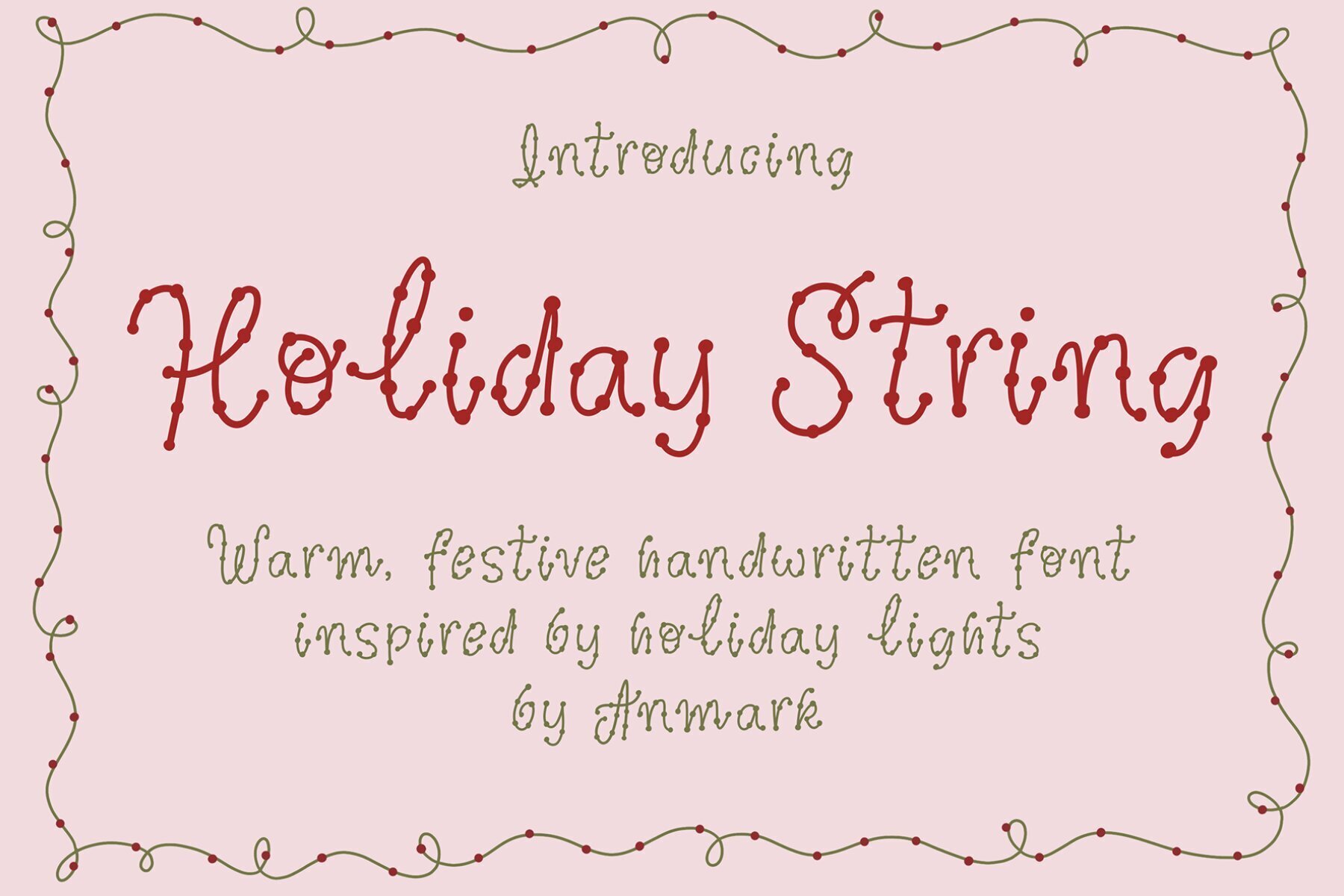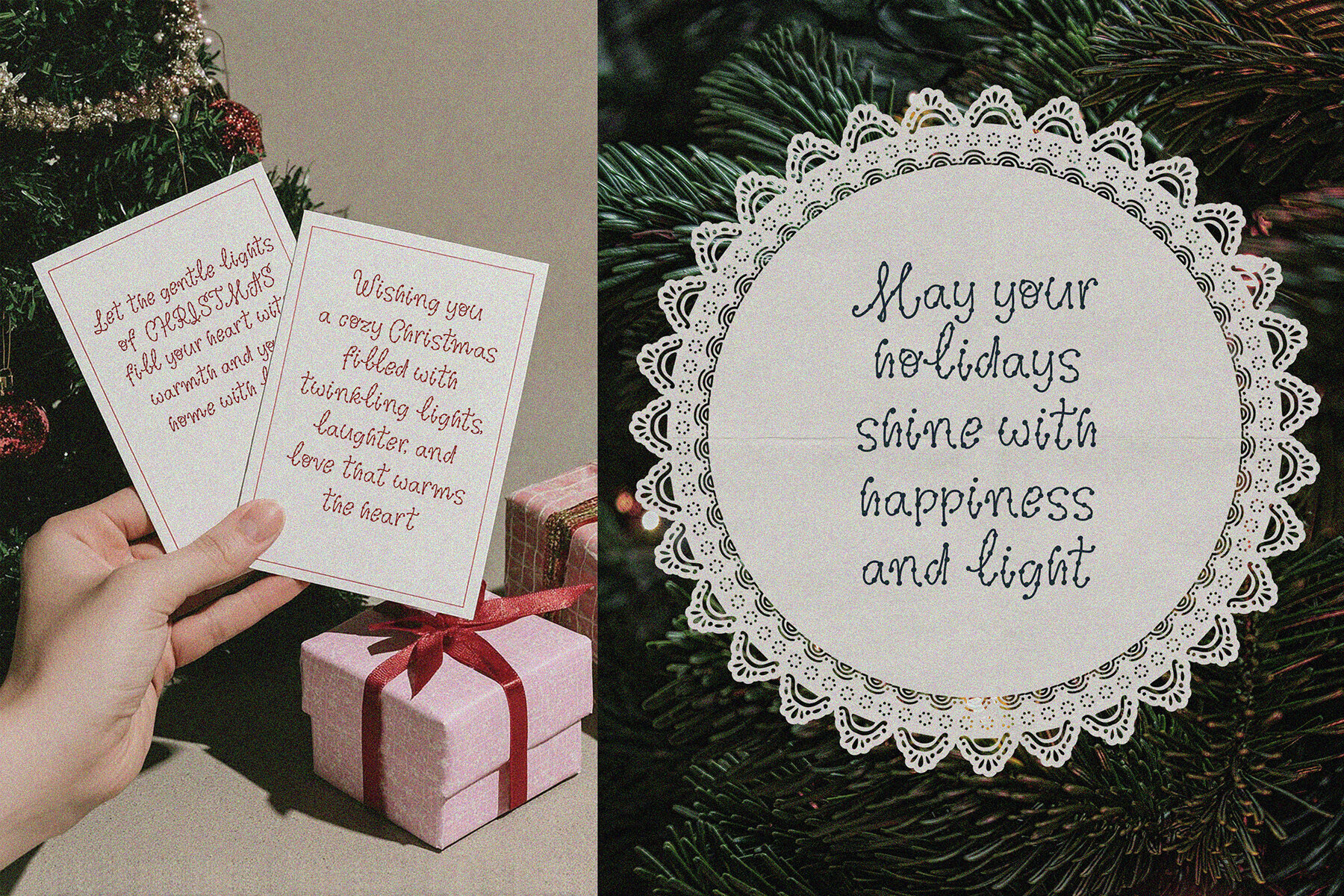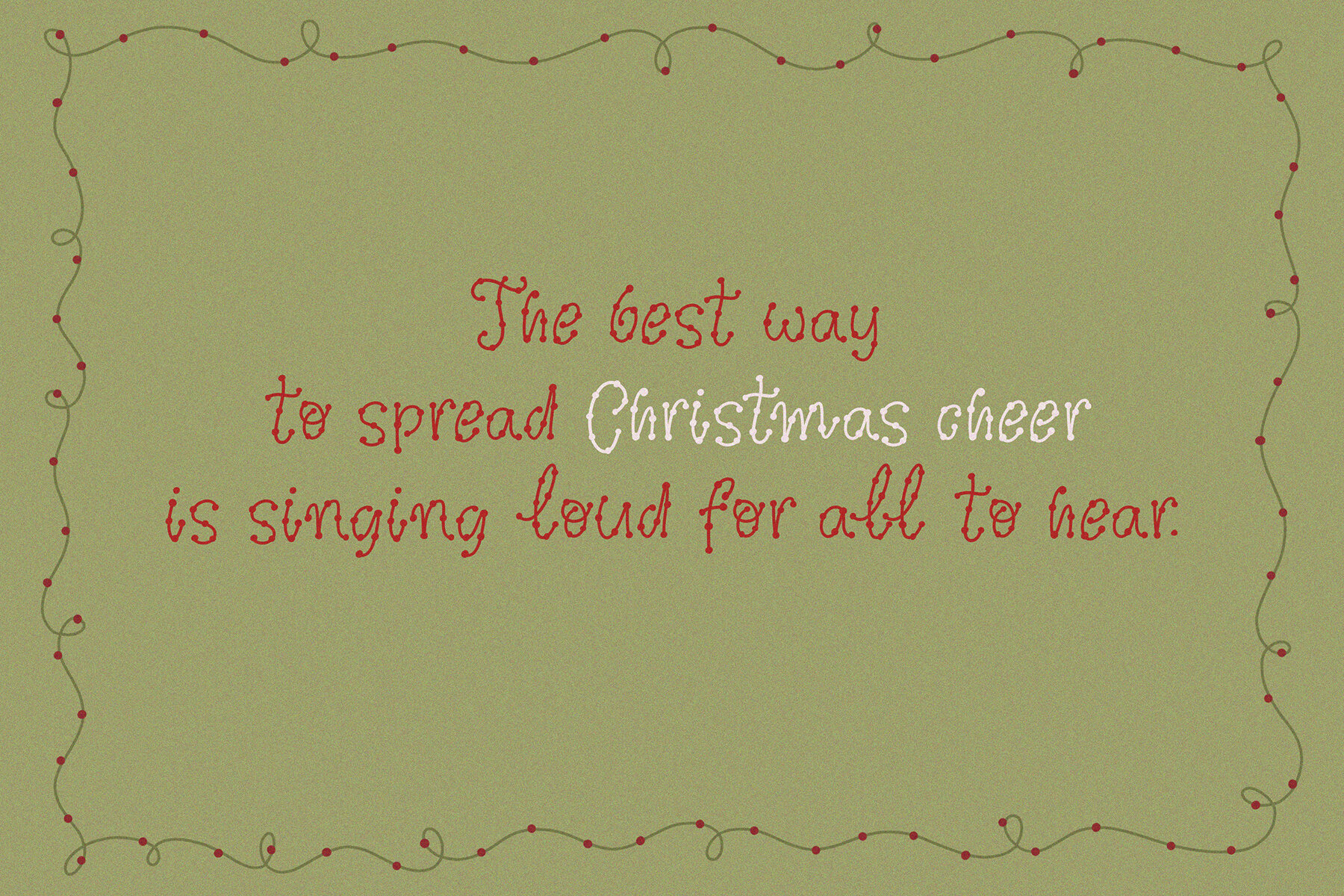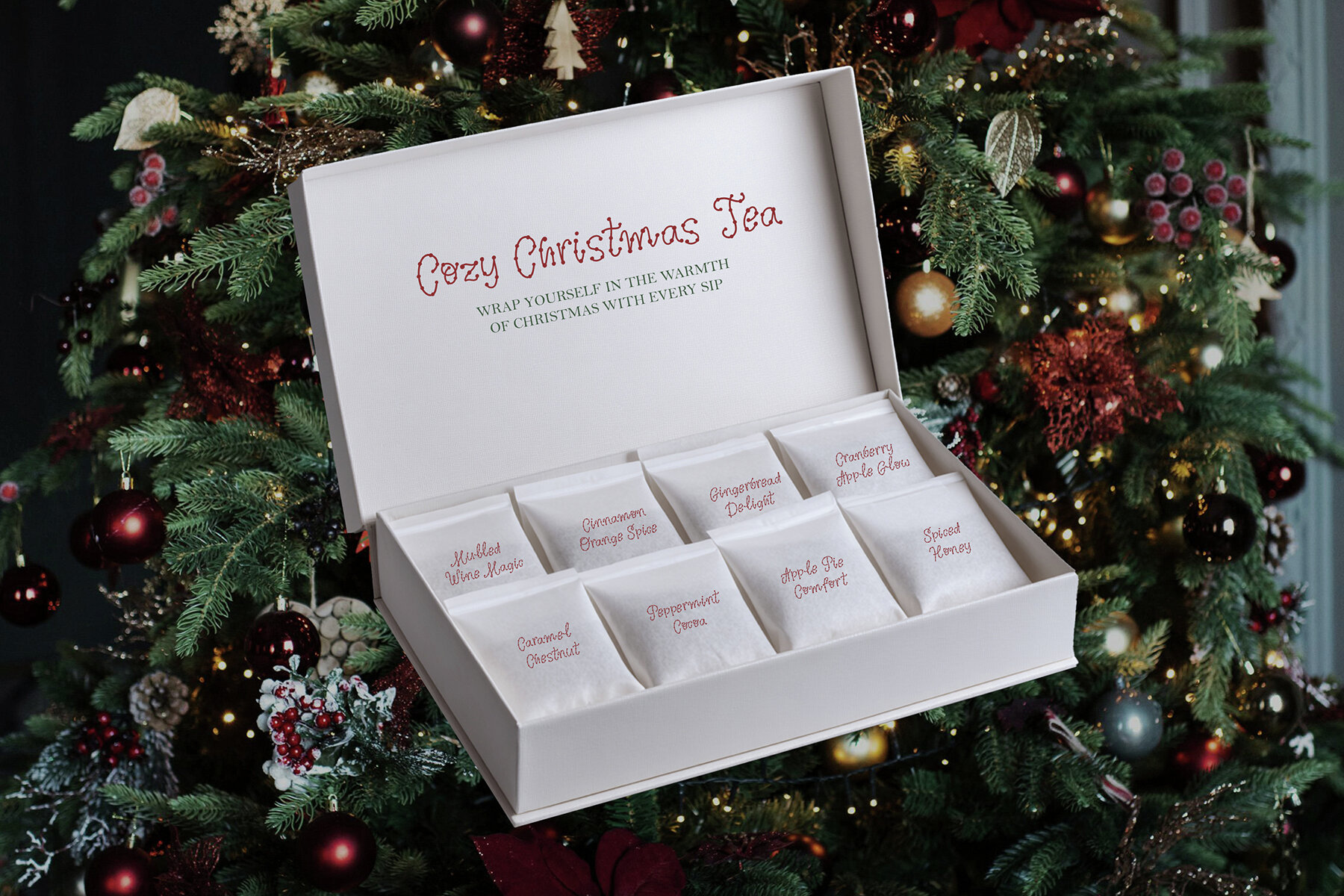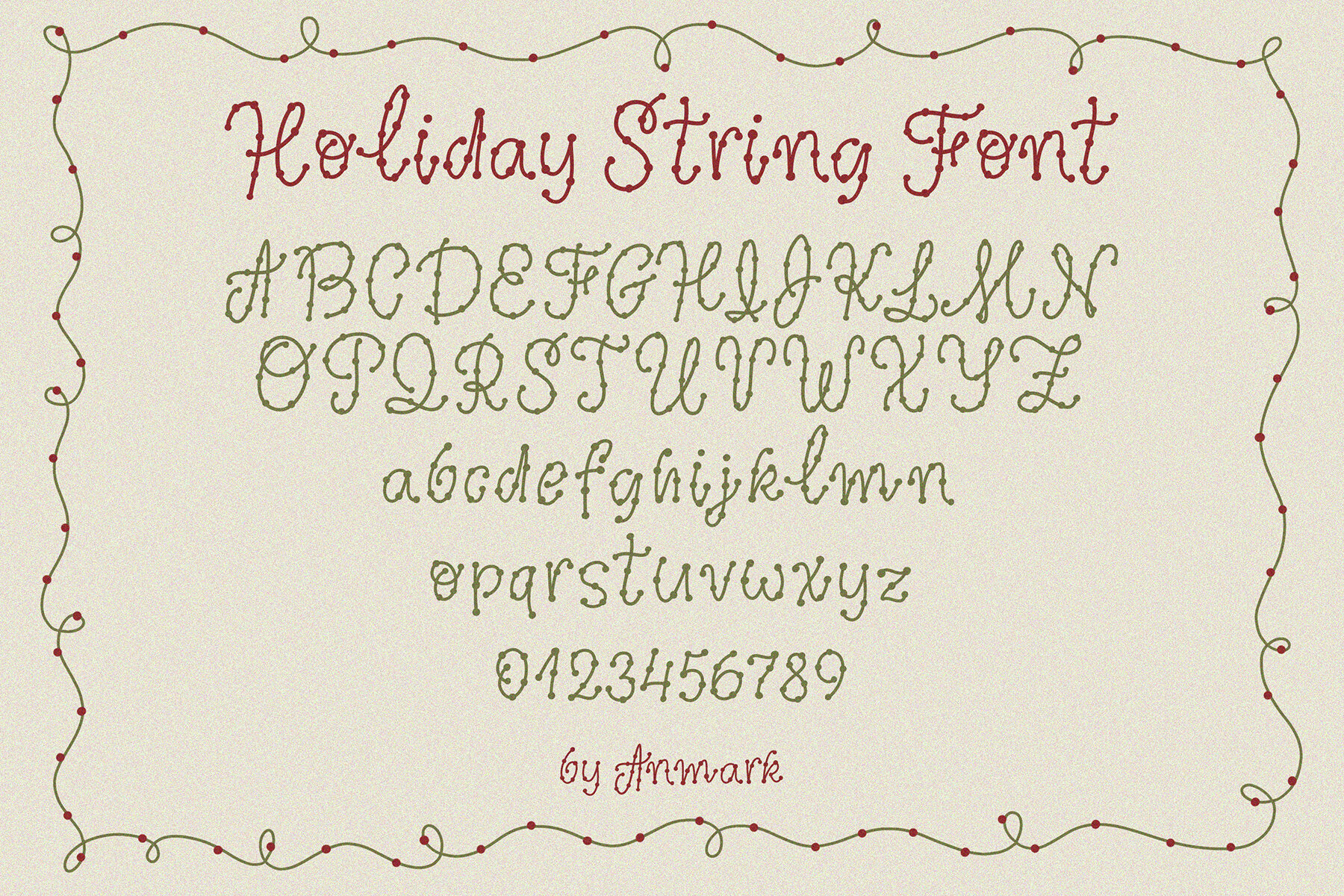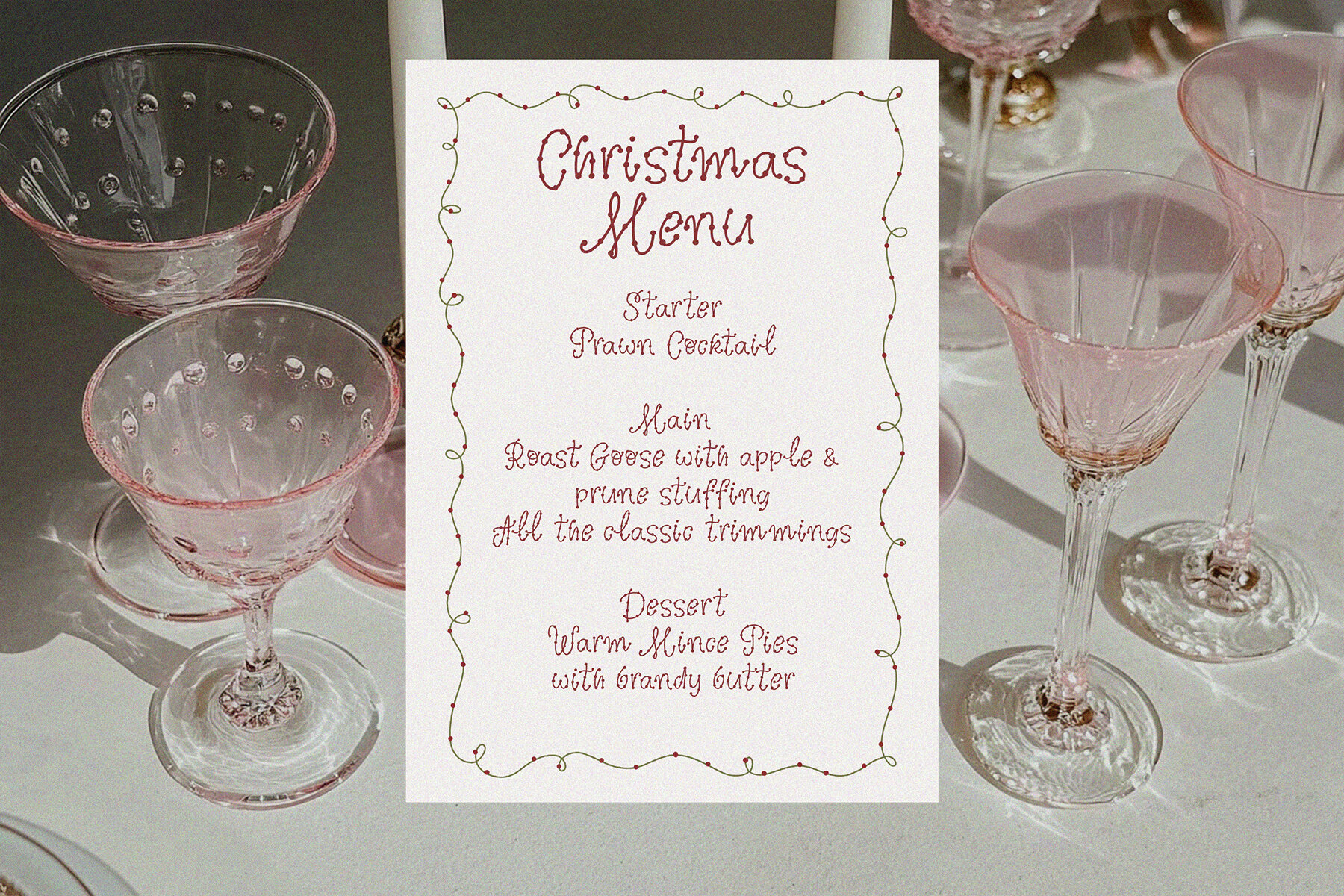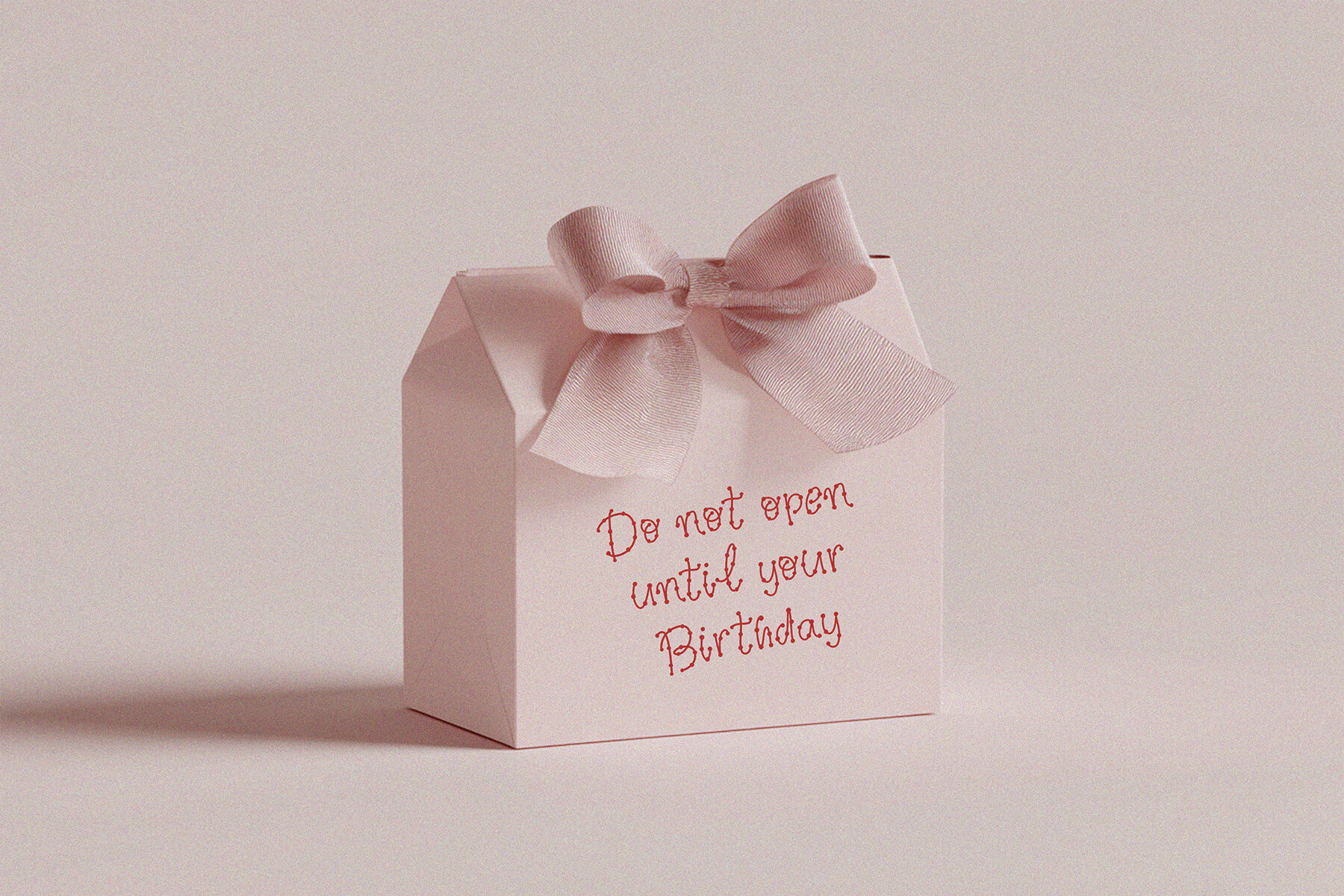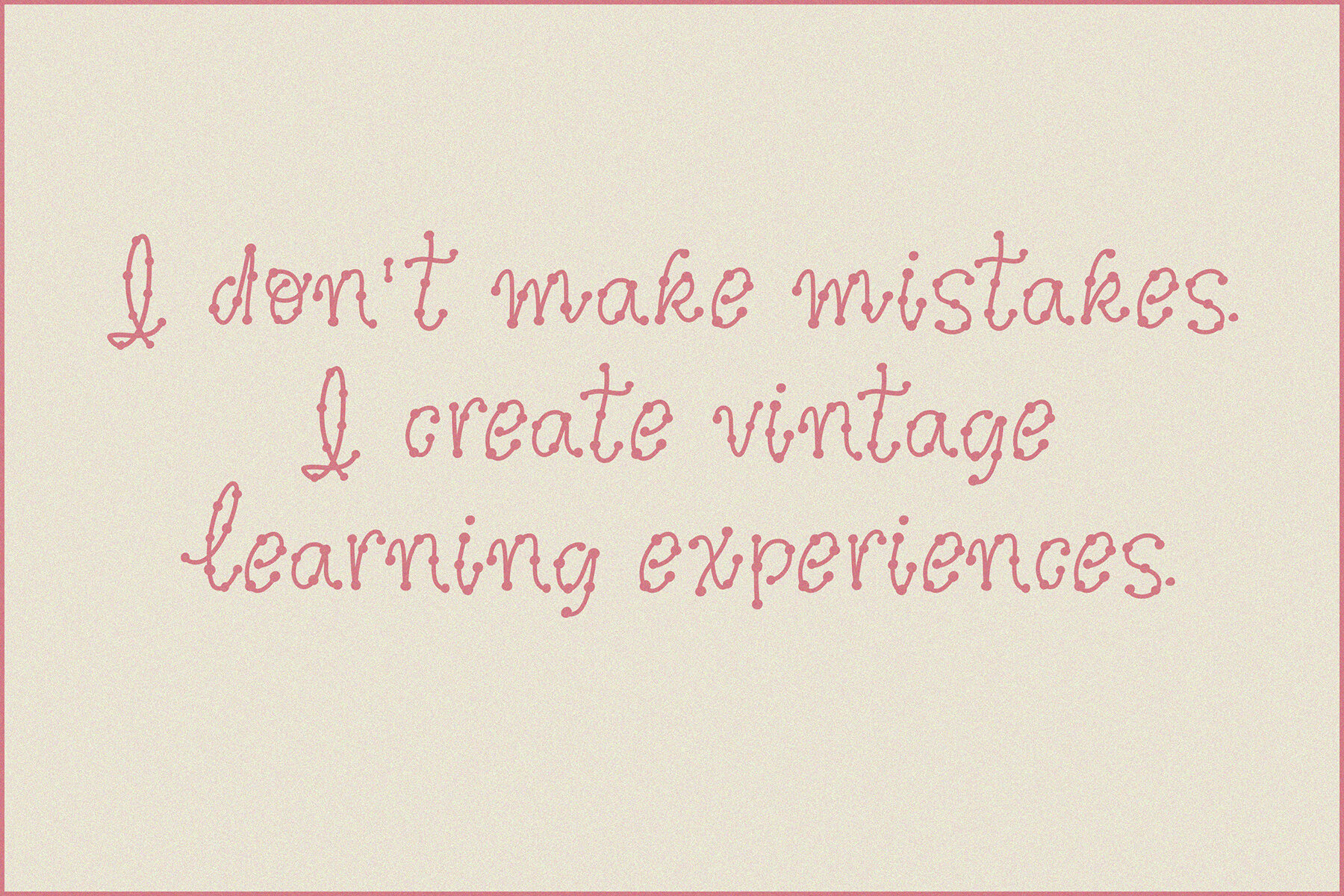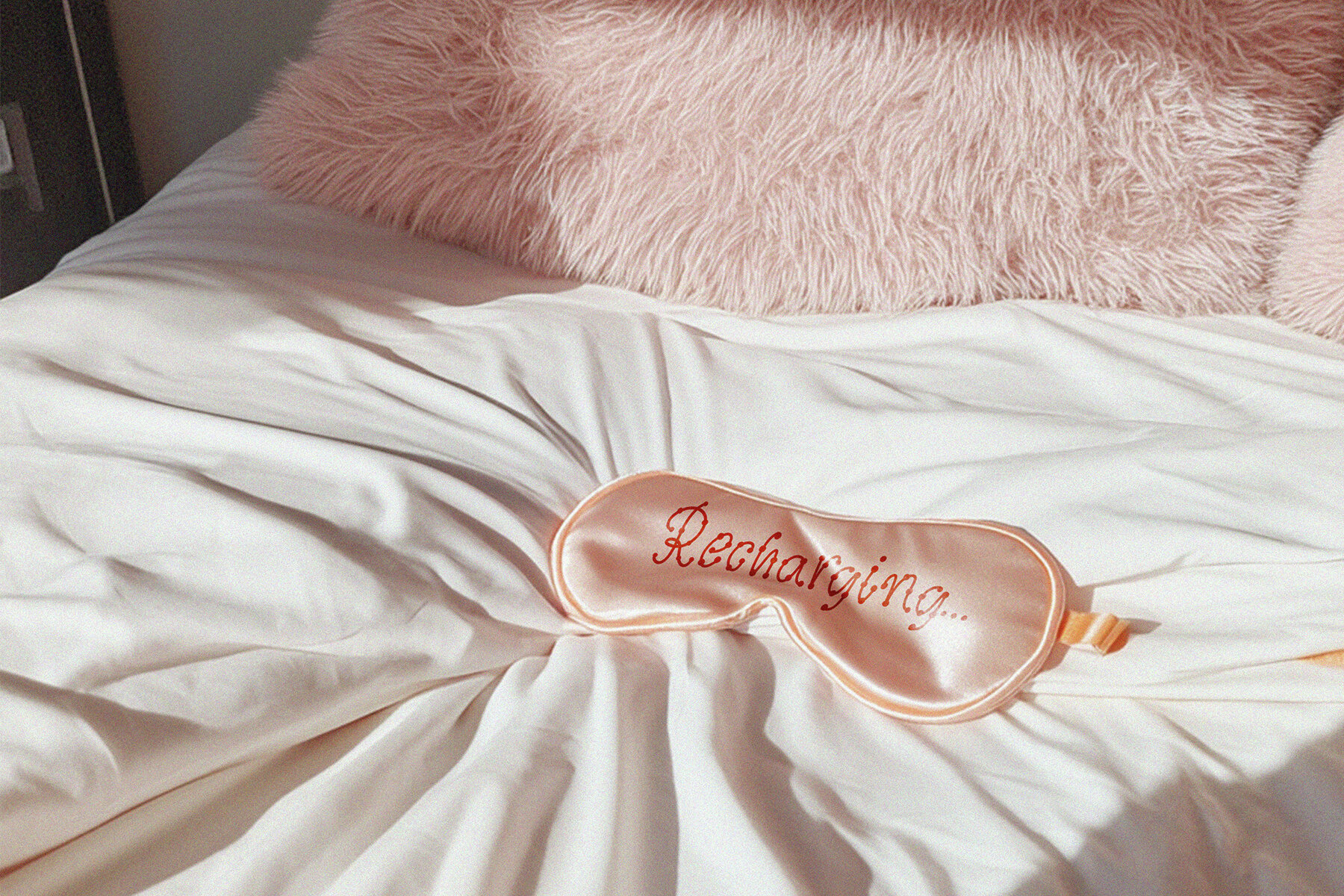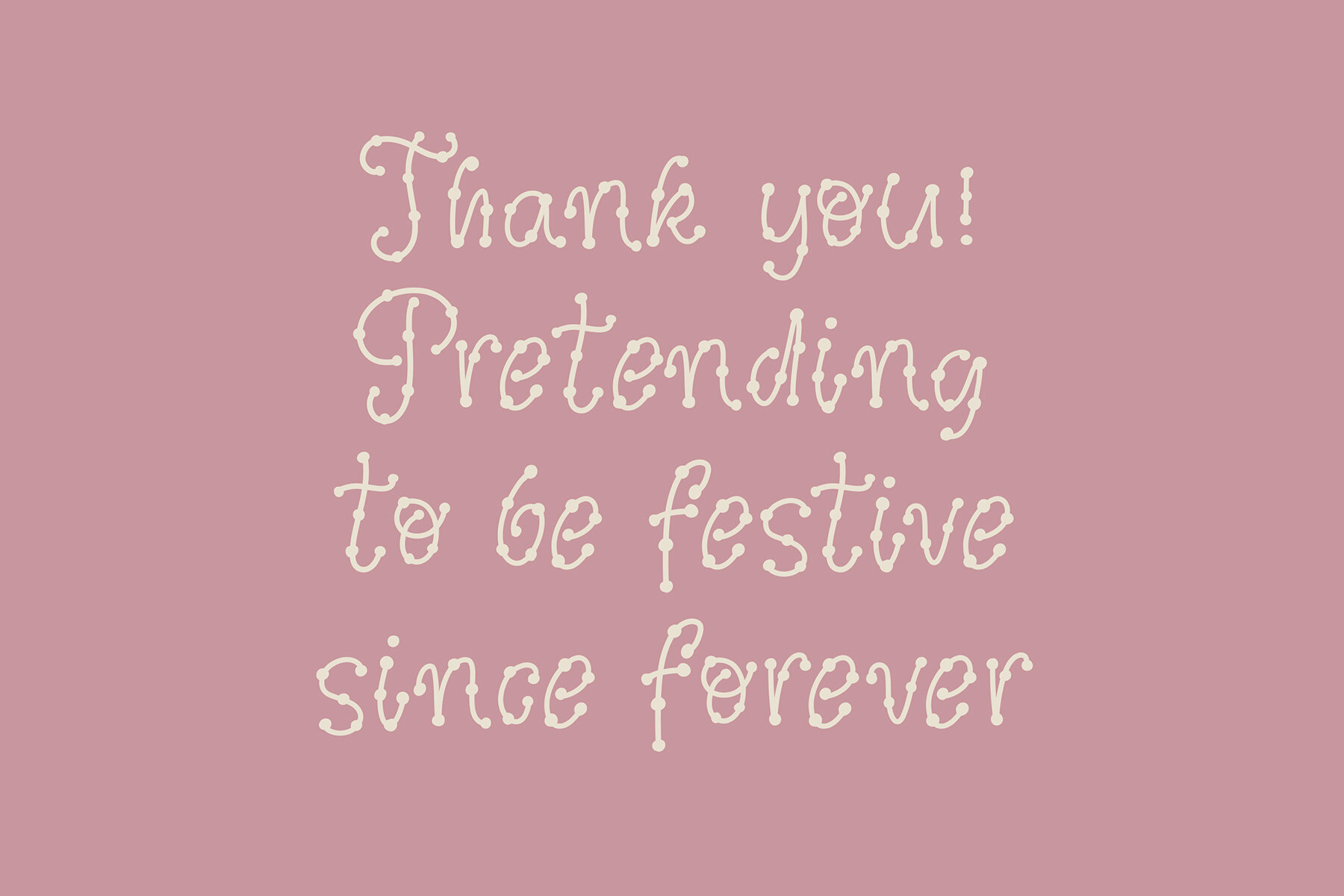
Holiday String Font
Holiday String
Holiday String infuses every project with cozy, festive charm. The playful, hand-drawn dotted letters evoke a nostalgic, vintage feel, making this font an inviting choice for holiday-themed designs. Whether you're working on Christmas cards, New Year layouts, or crafting unique gift tags, Holiday String's warm personality adds a joyful, handcrafted touch that stands out. This versatile font fits seamlessly into DIY projects, seasonal packaging, party invitations, and winter wedding stationery. The dotted texture and vintage-inspired design offer a whimsical yet elegant style, perfect for adding a heartwarming accent to your creative work. Brighten any project with the spirit of the season using this distinctive, memorable typeface.Holiday String Hand-Drawn Font